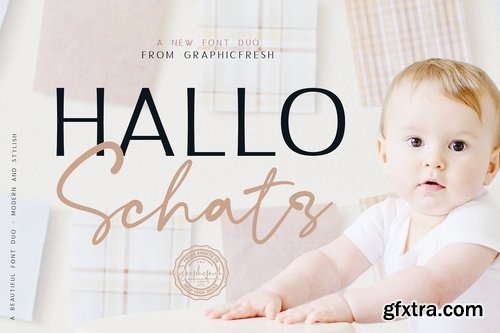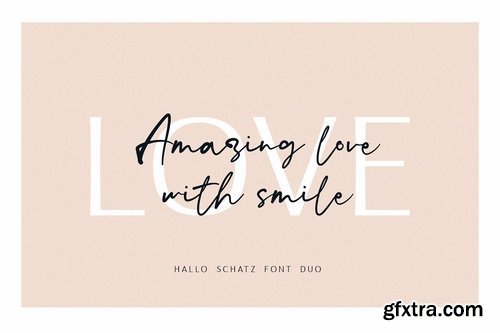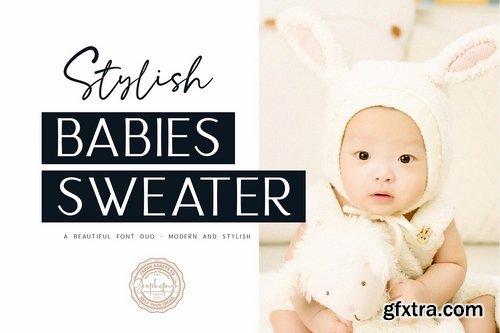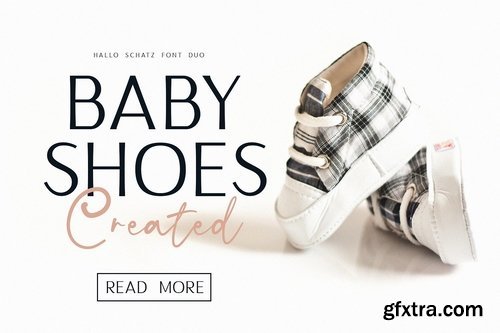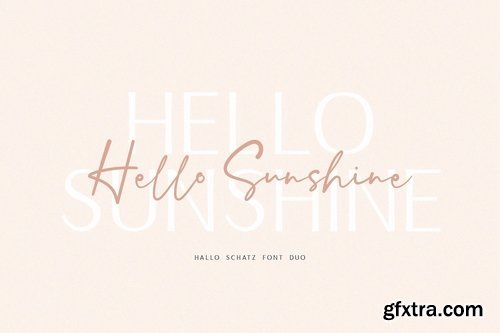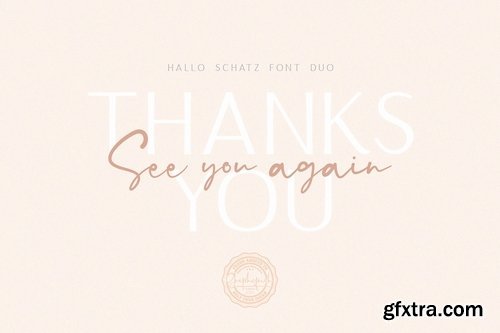
Introducing Hallo Schatz Font Duo!. It comes with an elegant and striking style which is perfect to make any design stand out! This font is perfect for branding, wedding invites, magazines, mugs, business cards, quotes, posters, and more.